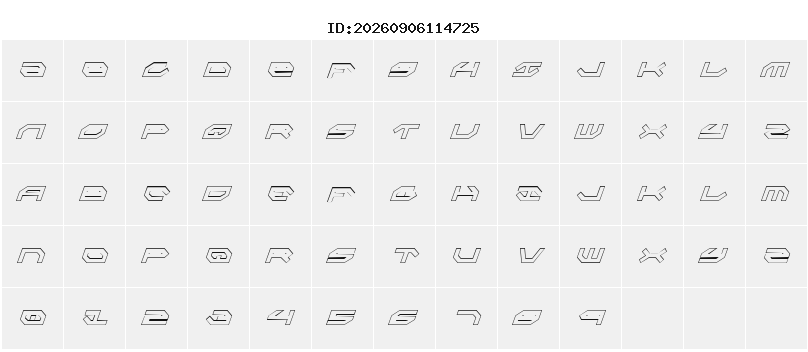
Taskforce Outline CondItalic Preview
• Font Name: Taskforce Outline CondItalic
• Font Style: Outline CondItalic
• Full Font Name: Taskforce Outline CondItalic
About Taskforce Outline CondItalic.ttf
Taskforce Outline CondItalic.ttf is a modern, elegant sans-serif font designed for ultimate readability and visual harmony. Perfect for branding, headlines, web design, and print materials.